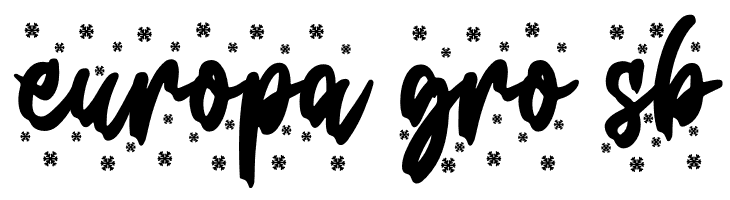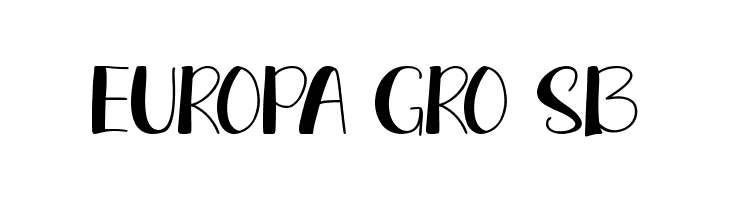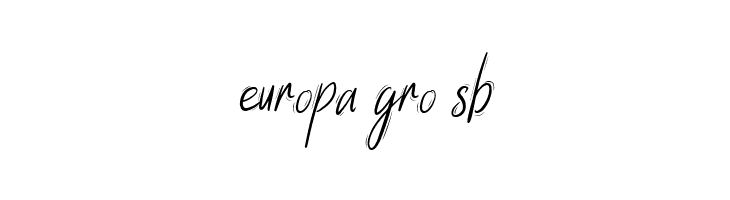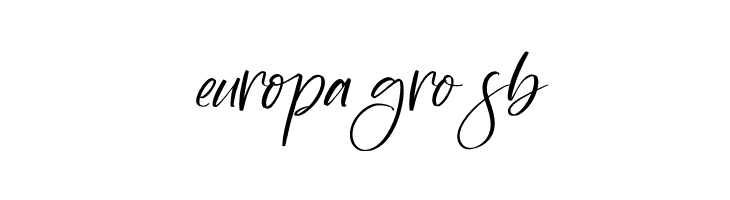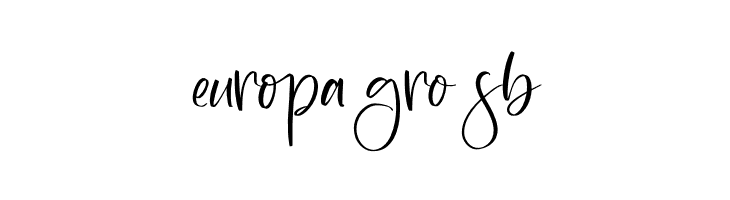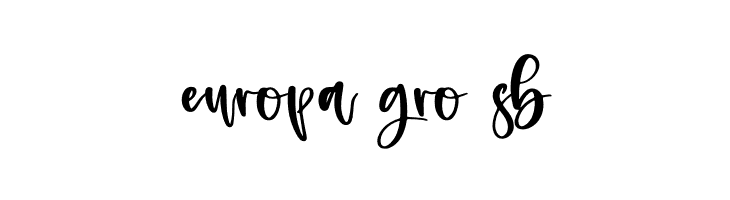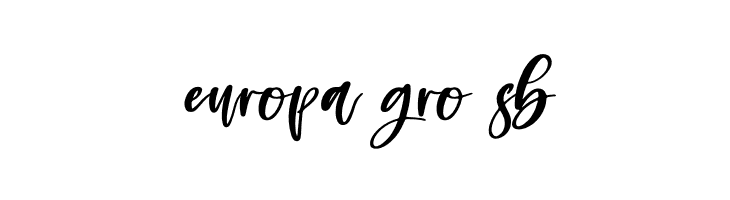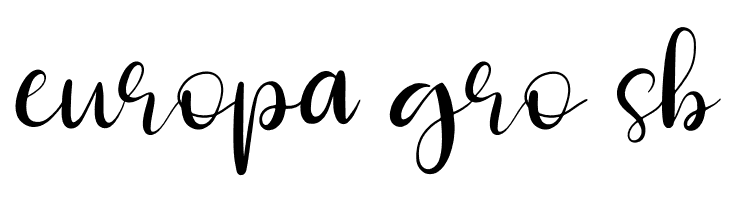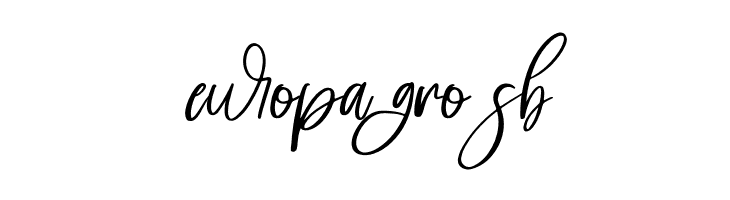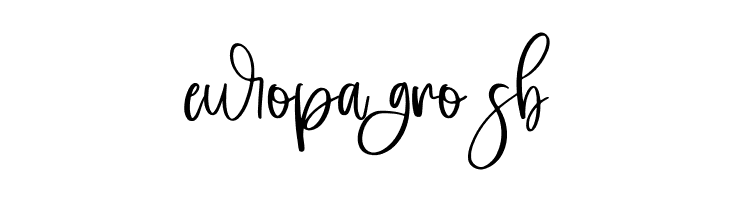
• Christmas Present Snow
A festive handwritten script font with snowflake accents, perfect for holiday designs.
• Sunday Display
A playful, bold, and handwritten-style font with a whimsical touch.
• Summer Wednesday Script
An elegant, flowing script font with a sophisticated, handwritten style.
• Washington Yesterday Italic
An elegant and flowing script font with a sophisticated style.
• Washington Yesterday
A dynamic and expressive handwritten font with fluid, flowing letterforms.
• Monday Holiday
A whimsical script font with decorative swirls and loops, perfect for creative projects.
• Monday Holiday Italic
A playful and elegant cursive script font with decorative swashes.
• Butterfly Holiday
A whimsical script font with playful loops and heart motifs.
• lovelyday Italic
A modern, cursive italic font with elegant flow and connected letters.
• lovelyday
A playful, energetic handwritten font with medium contrast and dynamic cursive letters.